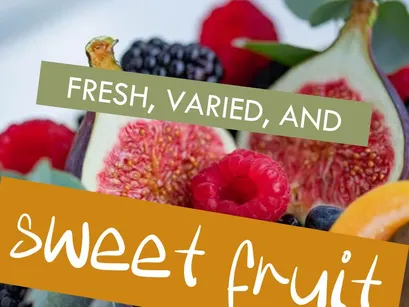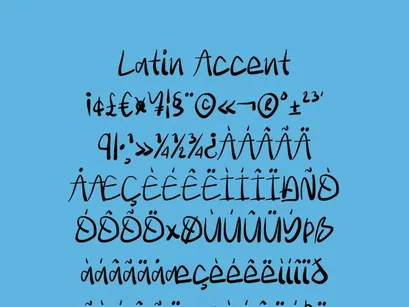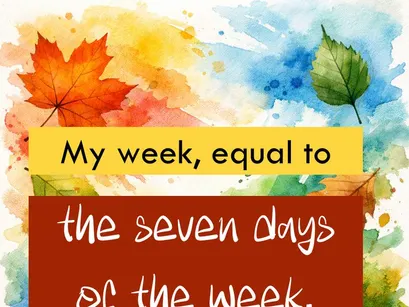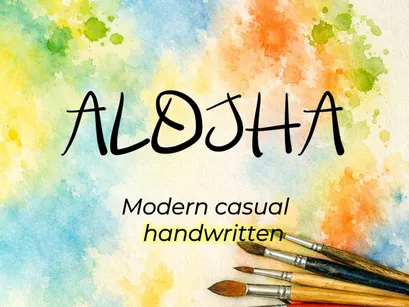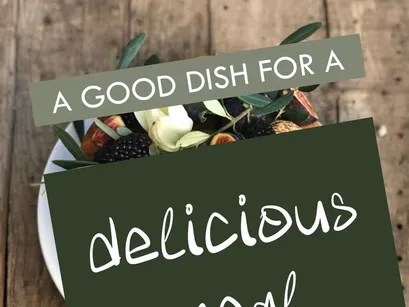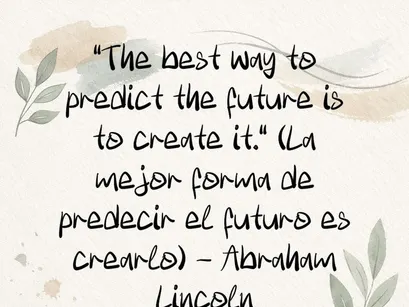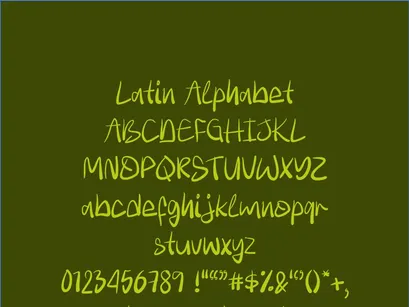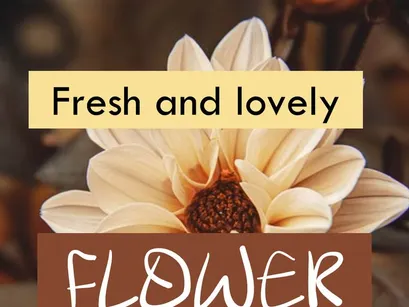
ALOJHA is a modern, casual handwritten typeface created with natural strokes and a fluid style that evokes the warmth of handcrafted work.
It is ideal for creative covers, planners, agendas, artistic branding, invitations, and digital designs that call for a human, relaxed touch.
Full Latin alphabet (uppercase and lowercase)
Accented characters and basic symbols
💛 Inspired by watercolors and hand-lettering, ALOJHA blends spontaneity and elegance for projects that require personality and a personal touch.